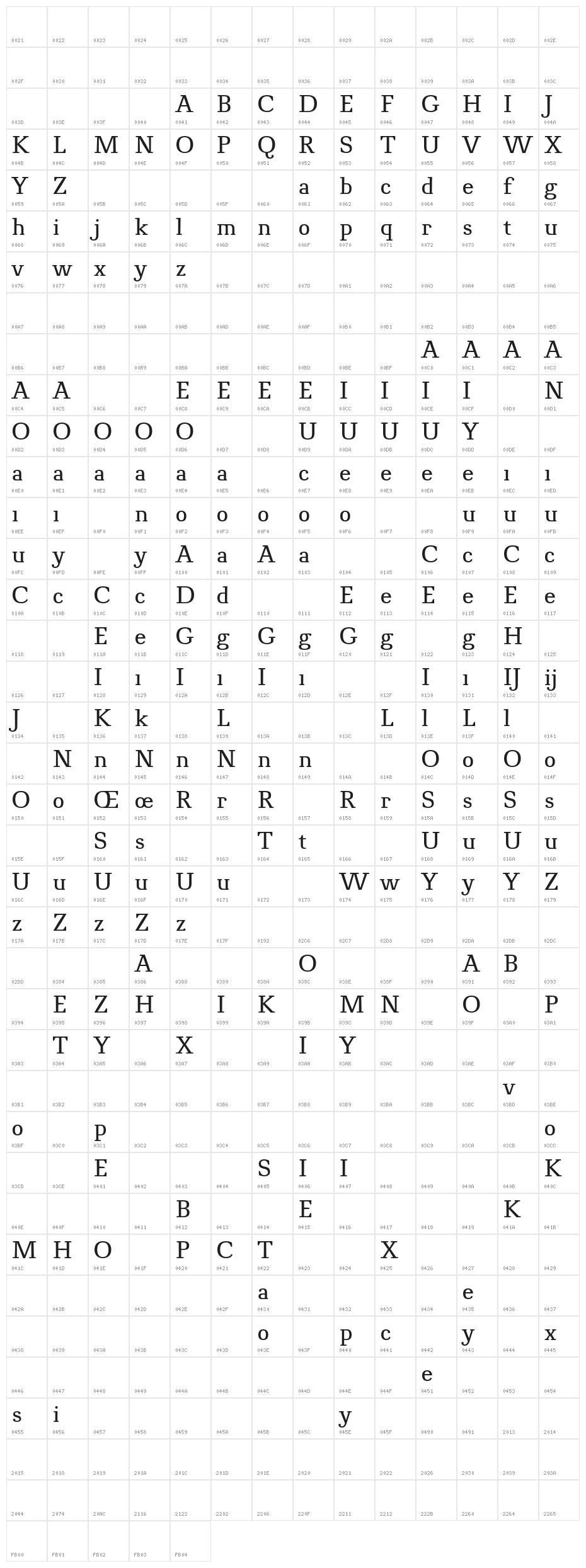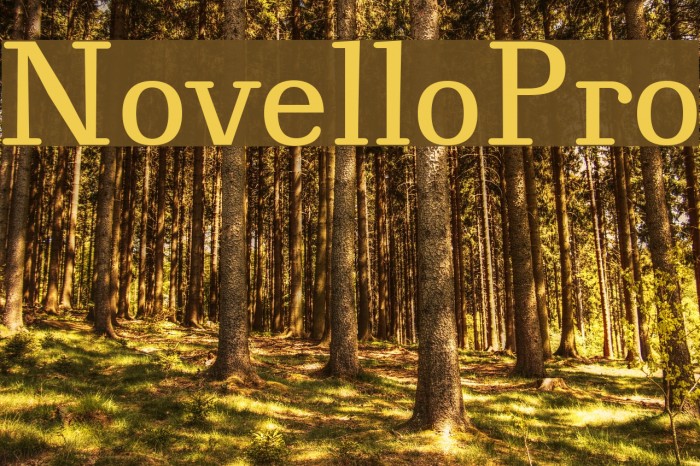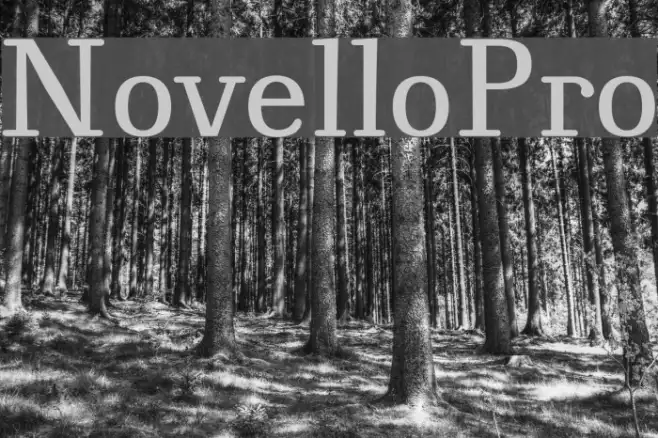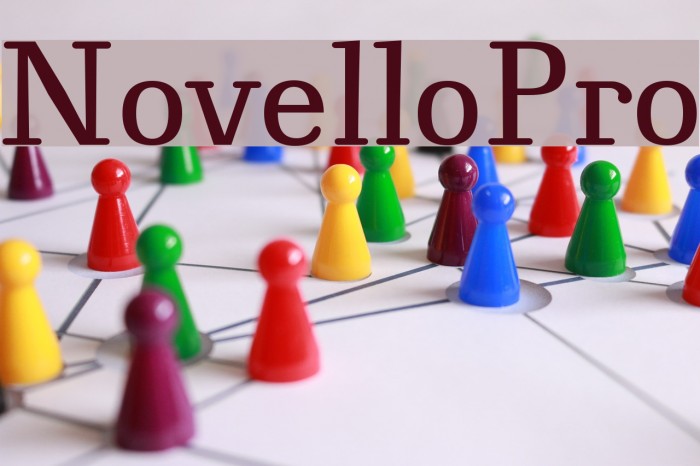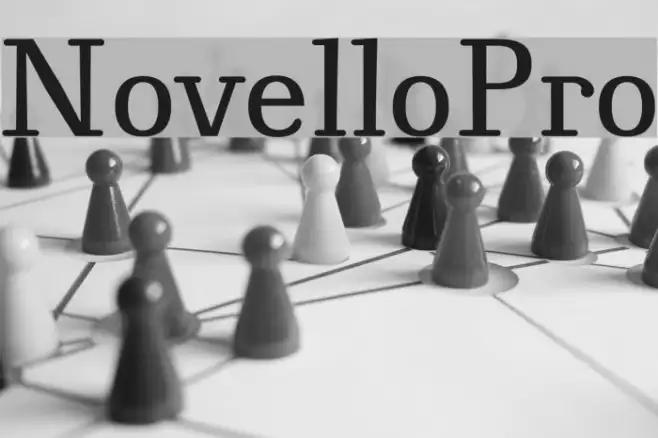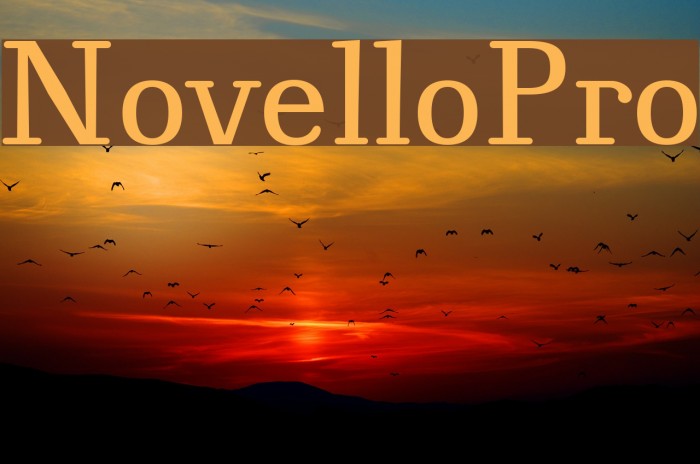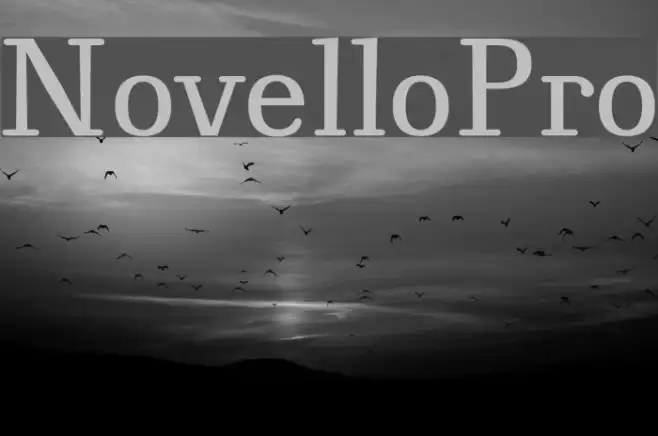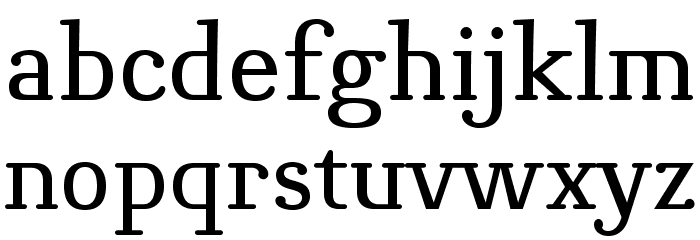
NovelloPro Font
NovelloPro Description
This font features a classic serif style with elegant and refined strokes. The uppercase letters are bold and commanding, while the lowercase letters maintain a consistent and harmonious flow. The serifs are pronounced, adding a touch of sophistication and tradition. The numerals are clear and balanced, making them easily readable. Special characters are well-integrated, maintaining the overall aesthetic of the font. The design is versatile, suitable for both digital and print media, offering a timeless appeal that can enhance various types of content.
| Proposed Projects | Ideal for editorial design, book covers, formal invitations, and branding projects that require a touch of elegance. |